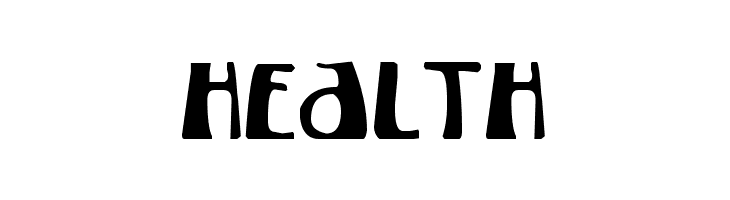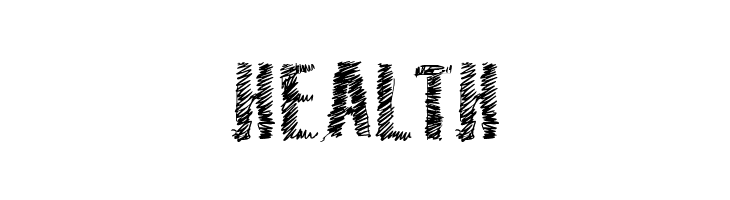
A playful, distorted font with quirky, energetic characters.
A bold, decorative font with thick strokes and ornate detailing.
A bold, condensed, and italicized font with a dynamic and strong presence.
A geometric and architectural font with a blueprint aesthetic, featuring only uppercase letters.
An artistic, sketch-like font with overlapping lines and curves.
A bold, geometric font with a classic yet modern Hollywood-inspired style.
A bold, sketch-like font with a hand-drawn, textured appearance.
A distressed, grunge-style font with a bold, weathered appearance.